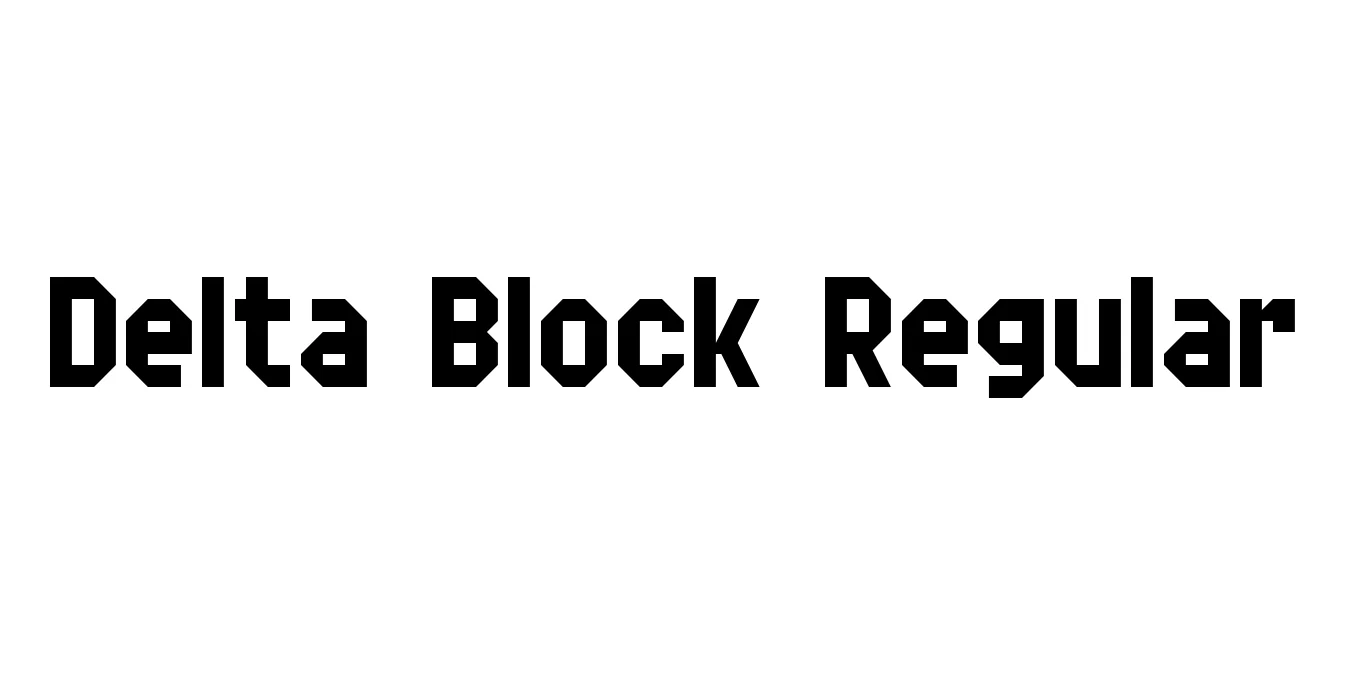
Delta Block Regular
Designed by Darrell Flood
| Font Name | Delta Block |
| Designer | Darrell Flood |
Delta Block Regular is a powerful, geometric display typeface designed by the prolific font creator Darrell Flood. Known for its industrial and block-inspired aesthetic, the font features heavy weights and sharp, clean angles that command attention. It was crafted to provide a sense of stability and technological sophistication, making it a favorite among designers working on modern, high-impact visual layouts.
The history of Delta Block Regular is rooted in the digital-first era of typography, where high legibility at large sizes is paramount. Its construction avoids delicate serifs in favor of sturdy, slab-like structures, ensuring that it remains punchy and distinct across various media. This font has become a staple for creators seeking a bold, futuristic look that bridges the gap between classic construction signage and contemporary sci-fi aesthetics.
Delta Block Regular Best Uses
Ideal for title screens, HUD elements, and eSports branding.
Perfect for tech or construction companies needing a strong, durable identity.
Excellent for large-scale advertising and high-impact event promotion.
Works well on t-shirts and apparel for a bold, graphic statement.